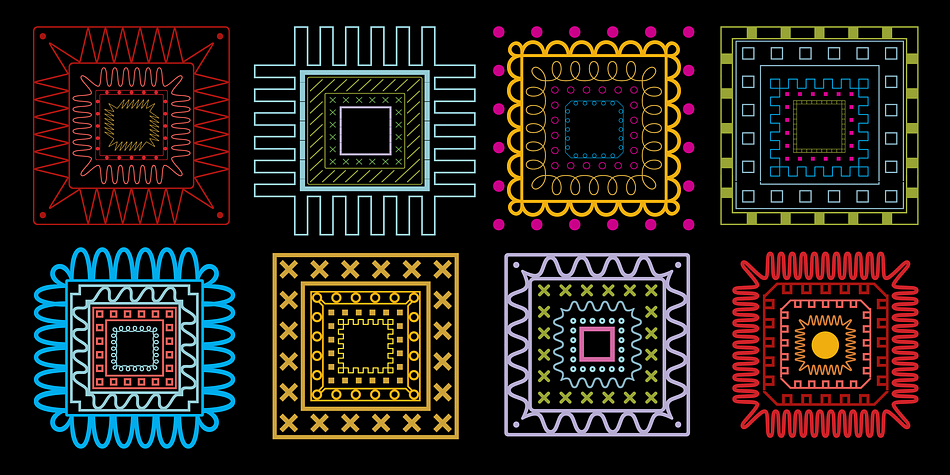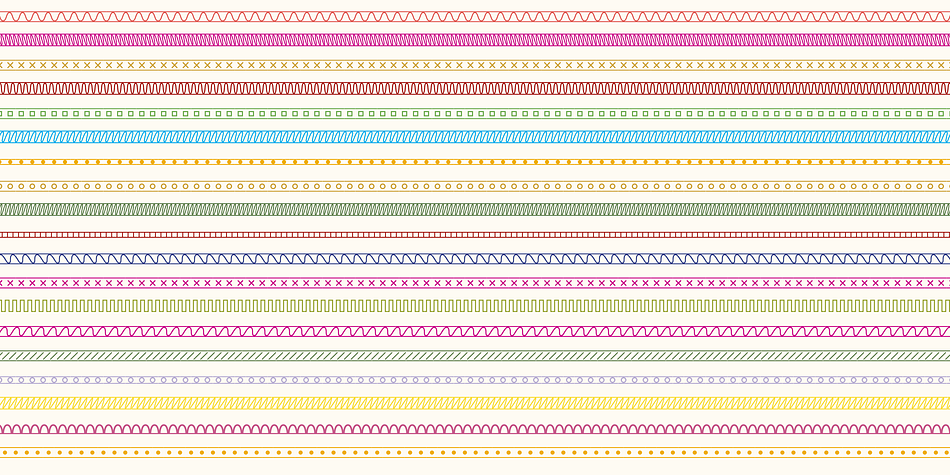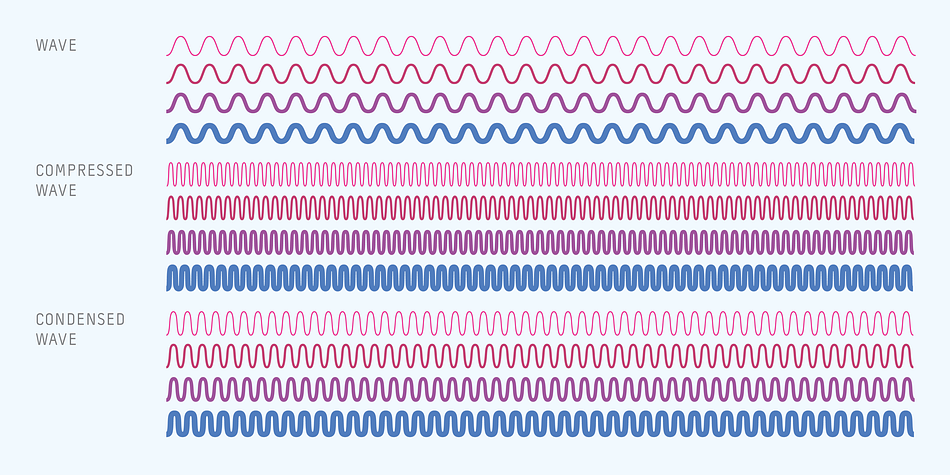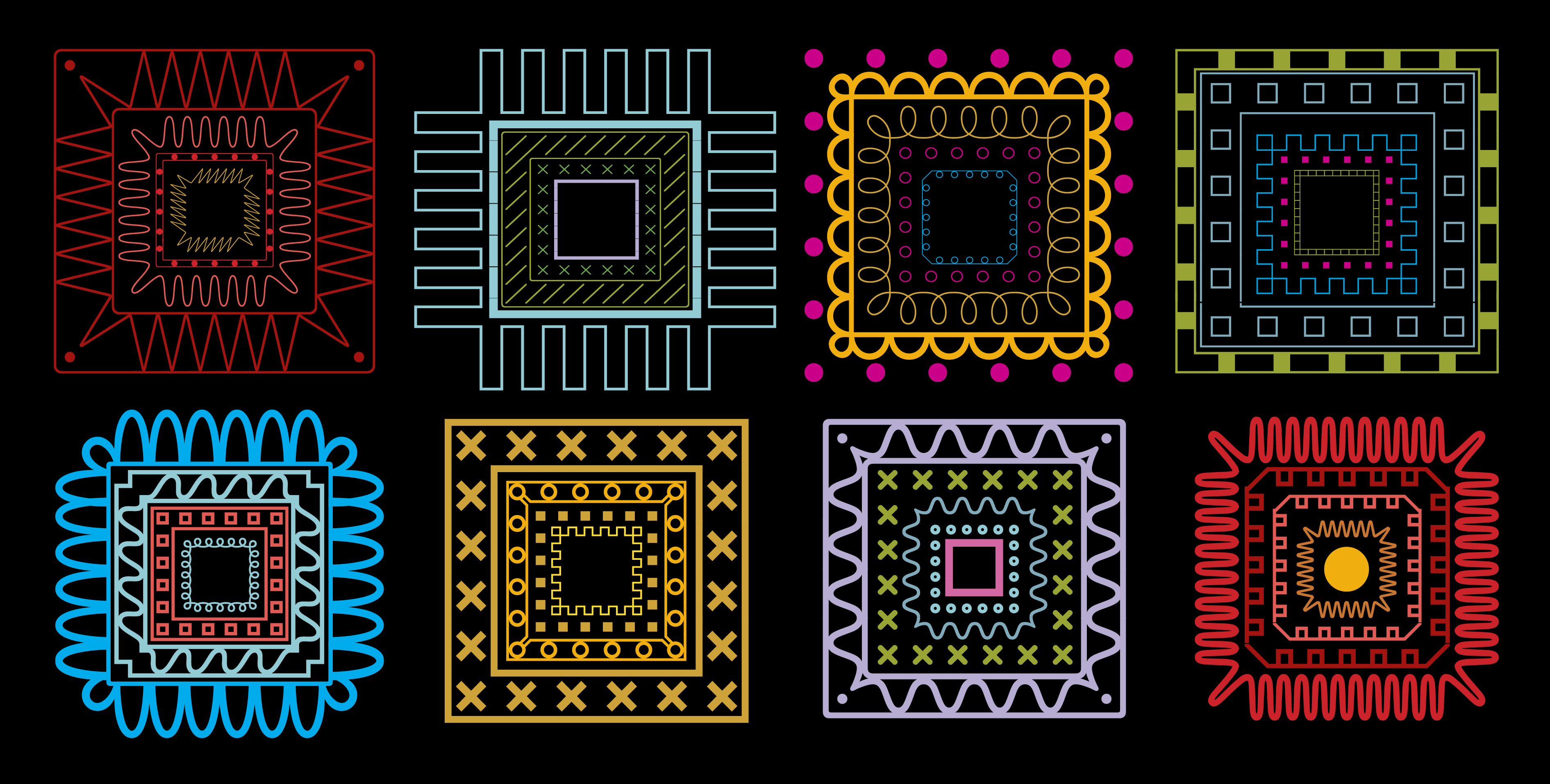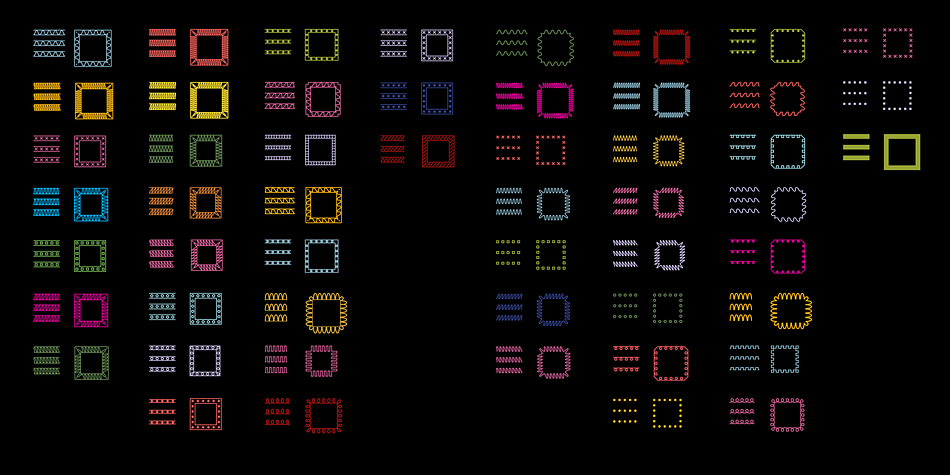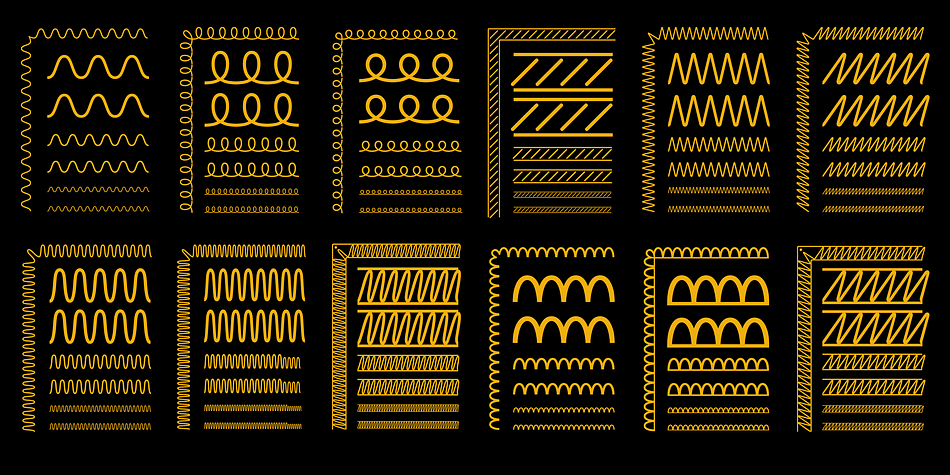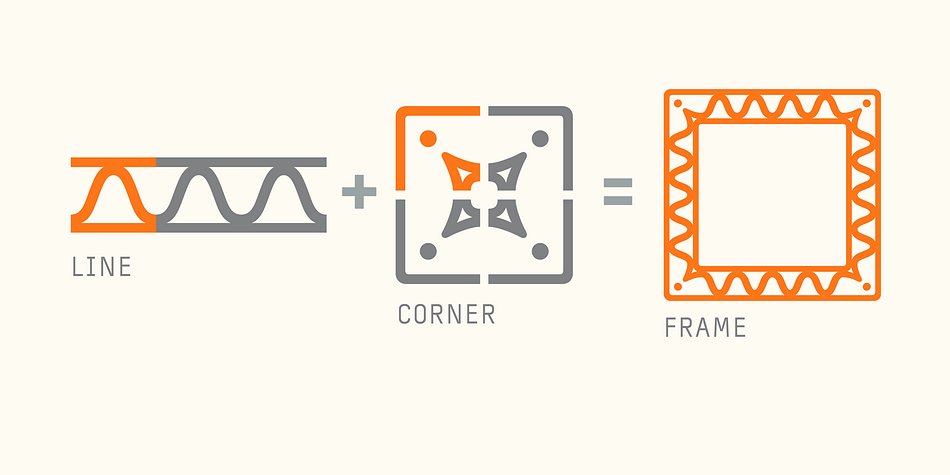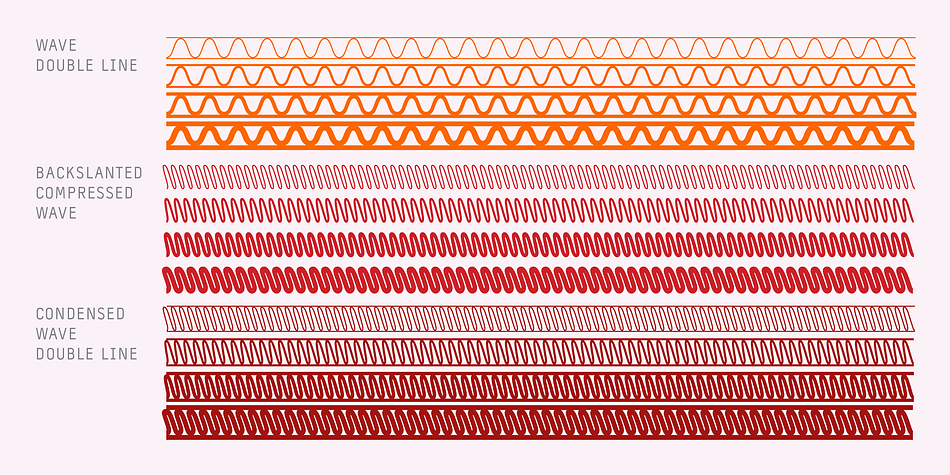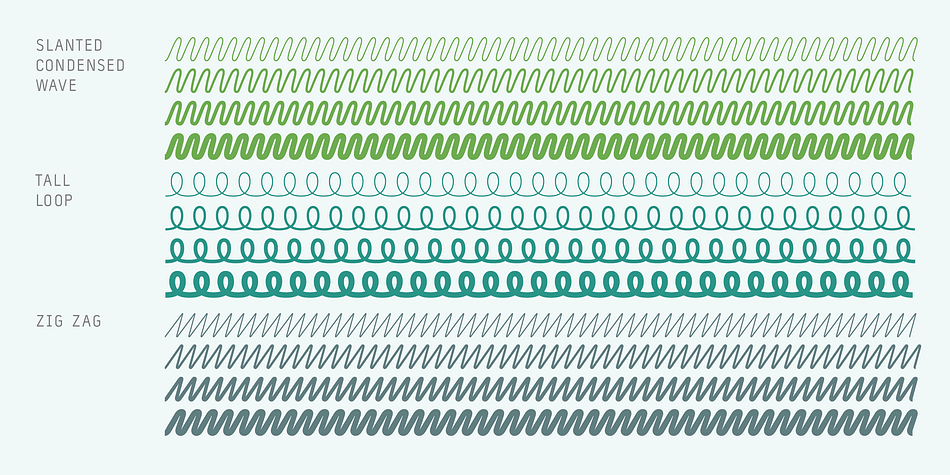
Designed by Carolina de Bartolo, TXT101 is a dingbat font family. This typeface has four styles and was published by 101 Editions.
TXT101 is a fresh, friendly typeface for mock text and borders. As a retro-cool digital successor to the pencil marks that were hand-drawn as placeholder text in the analog era, TXT101 includes 52 styles, from Arch to Zigzag, with a couple of loops, several slants, and a swell set of waves. If your final copy is TBD, use TXT101 to mock up roman, bold, italic or light. TXT101 looks GR8 and is EZ to set.
| Foundry | 101 Editions |
| Style | Dingbat |
| Designer | Carolina de Bartolo |